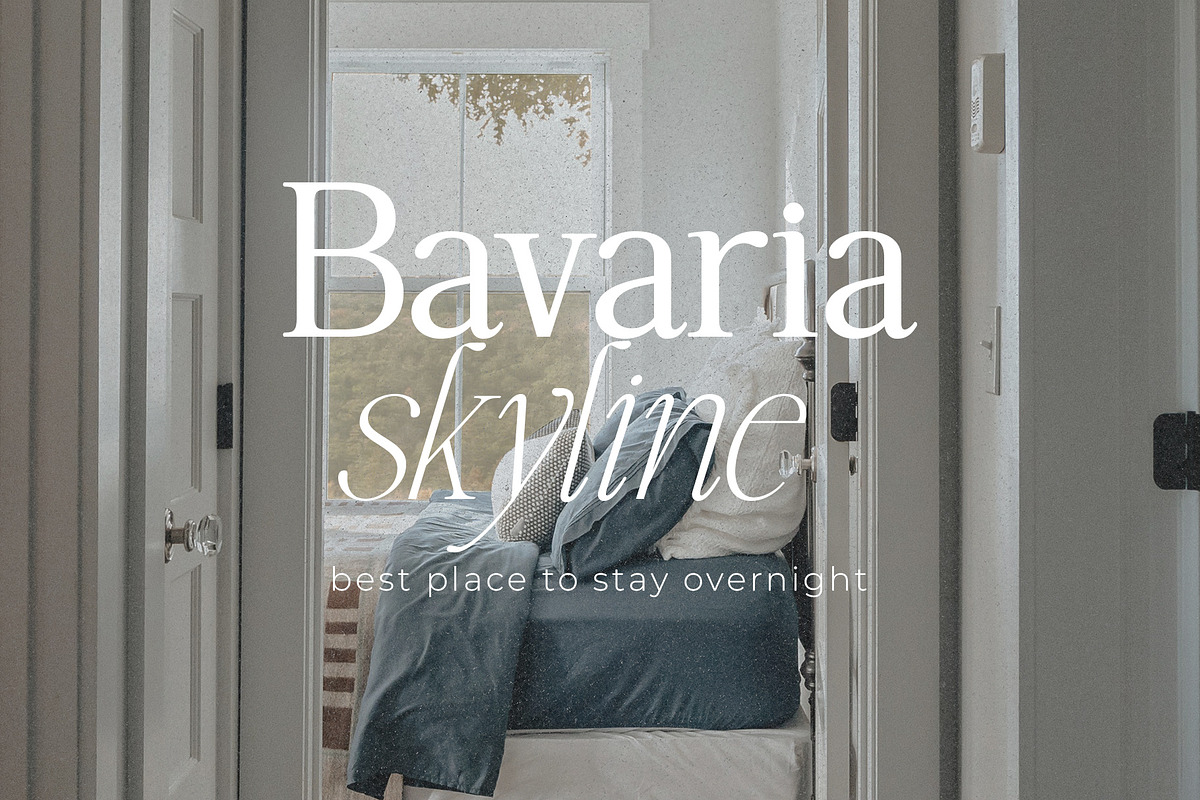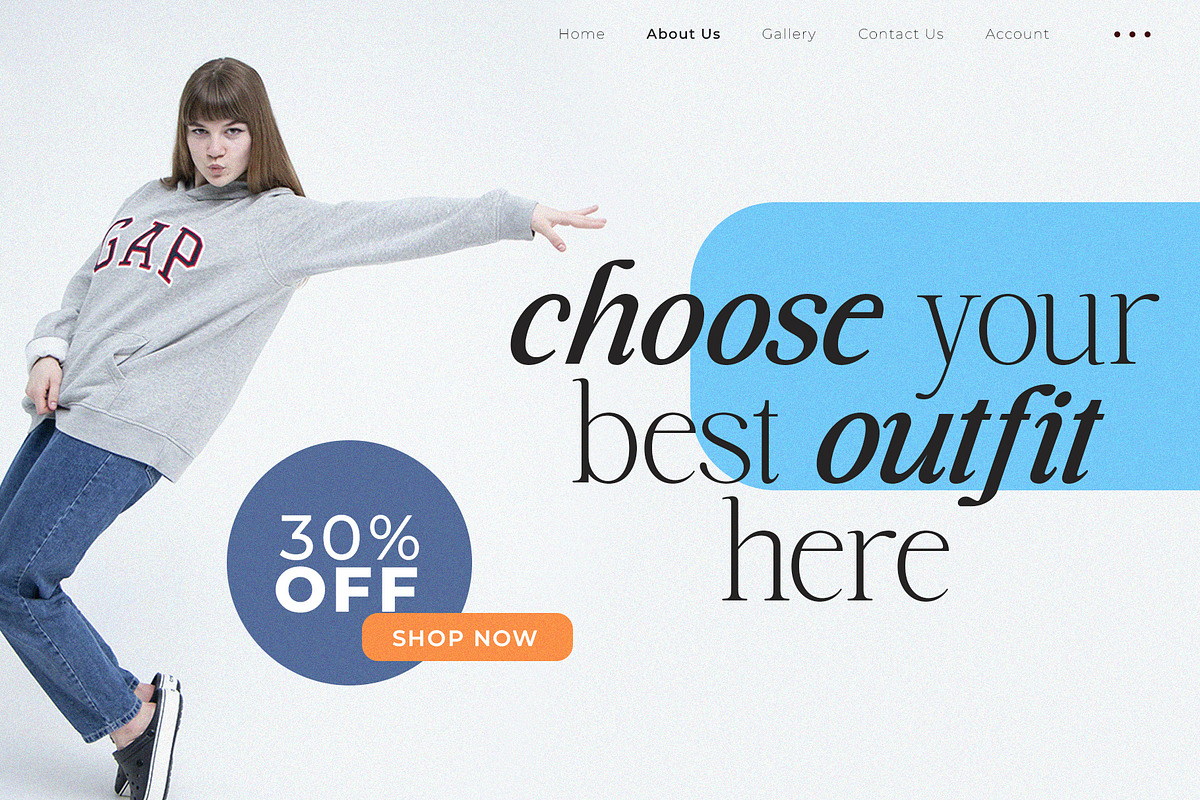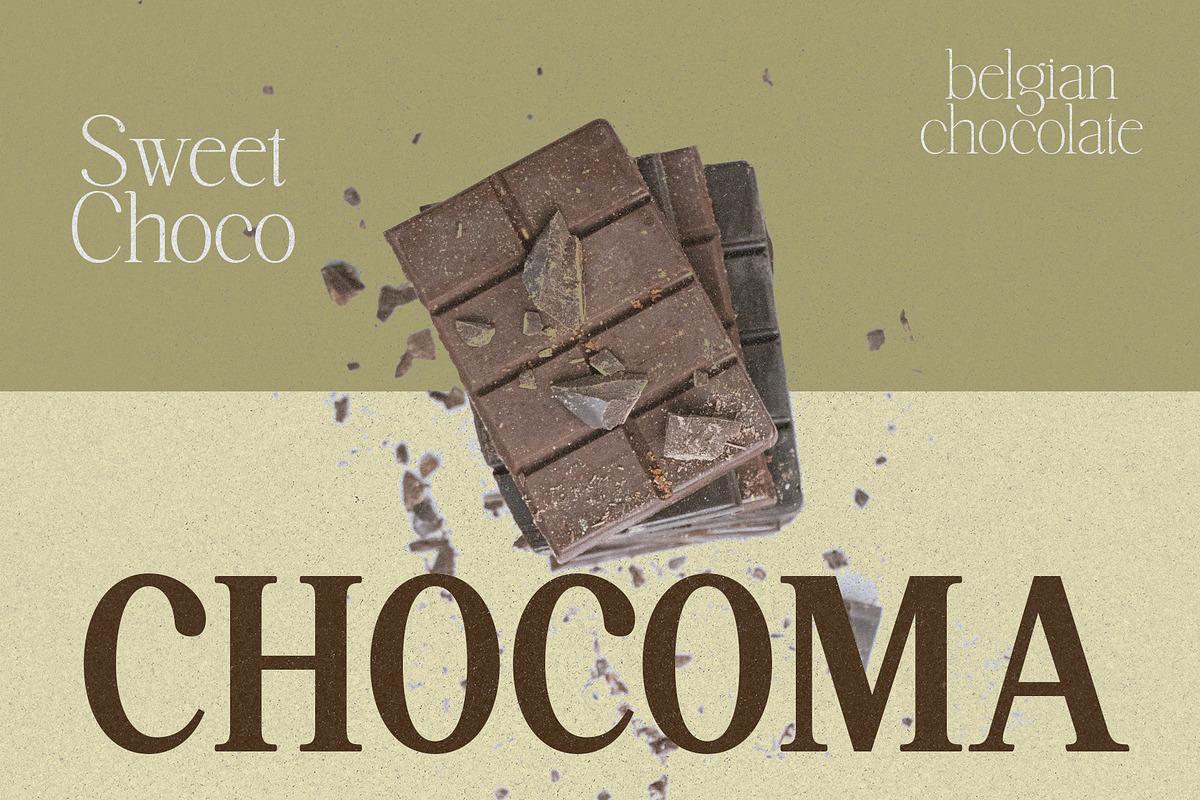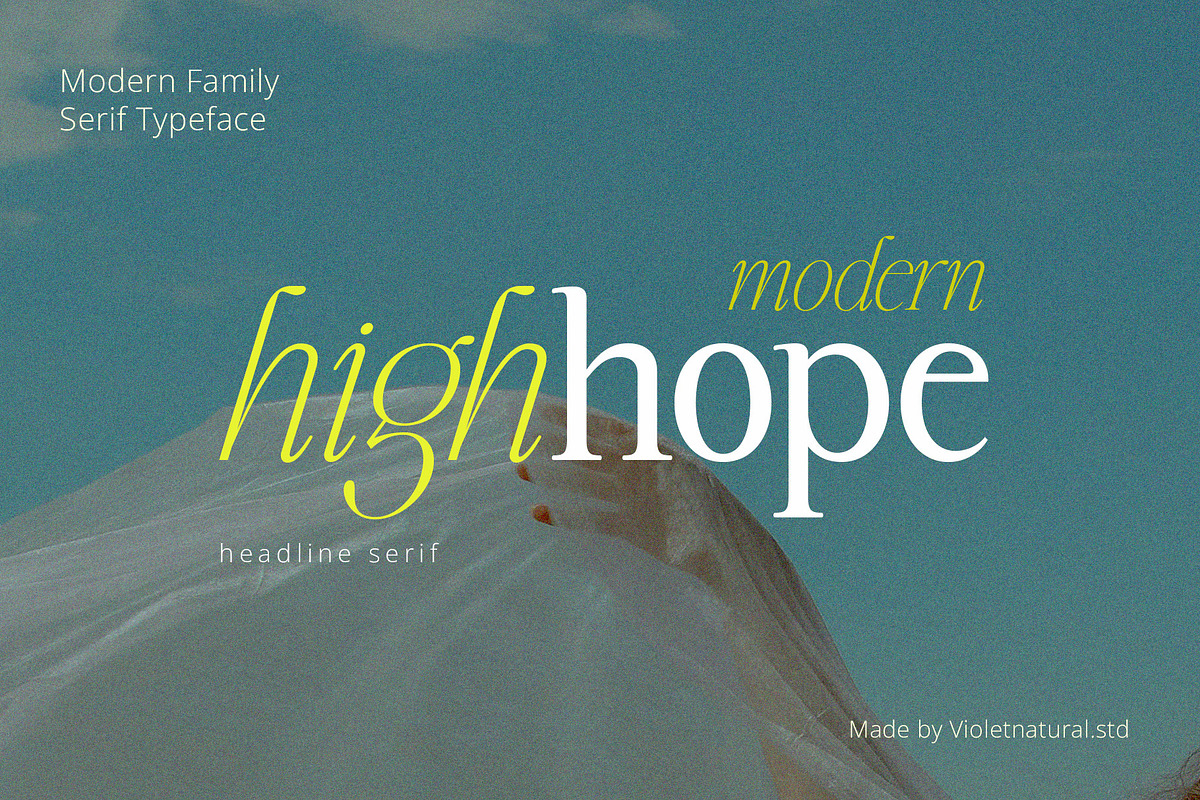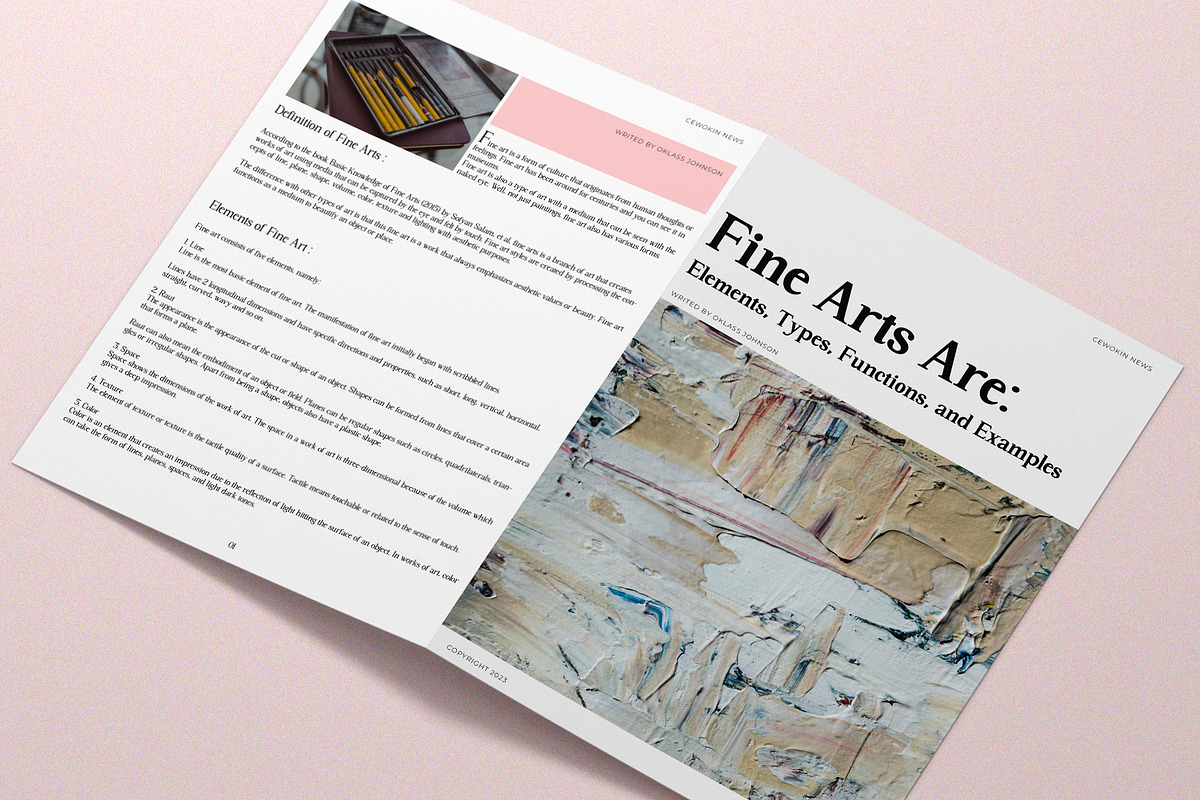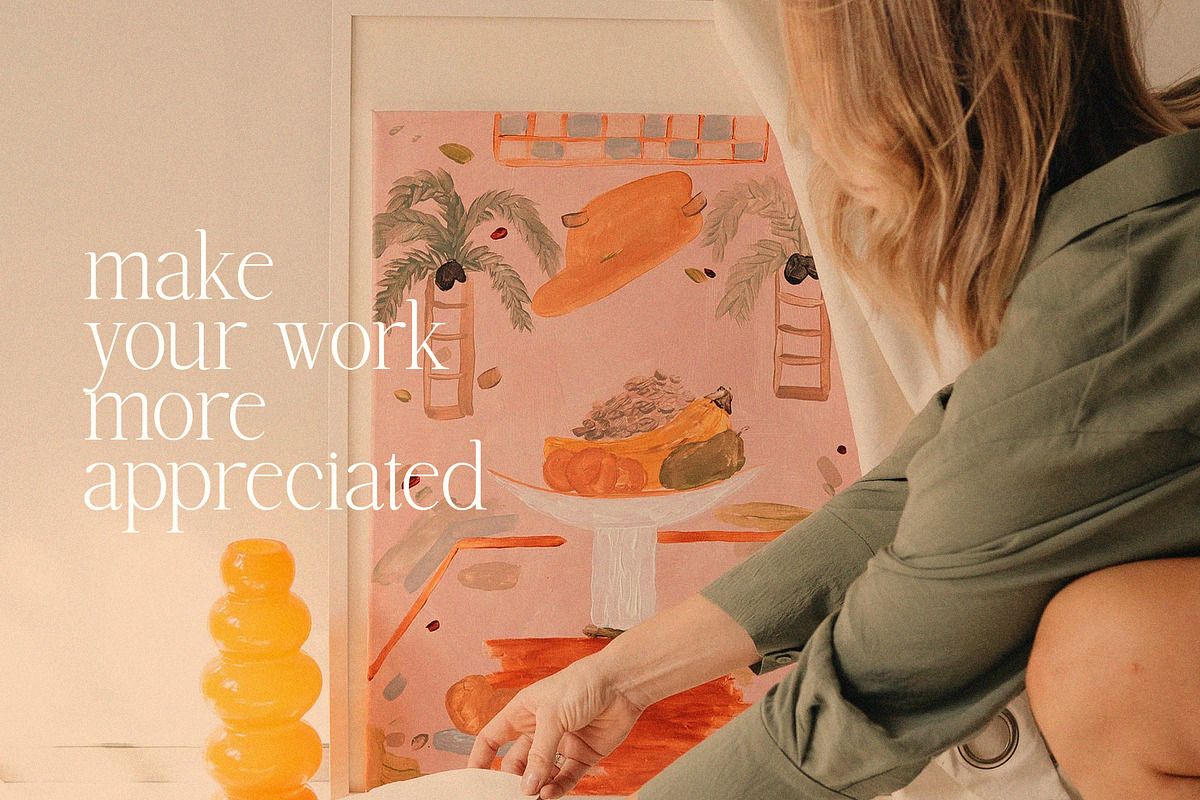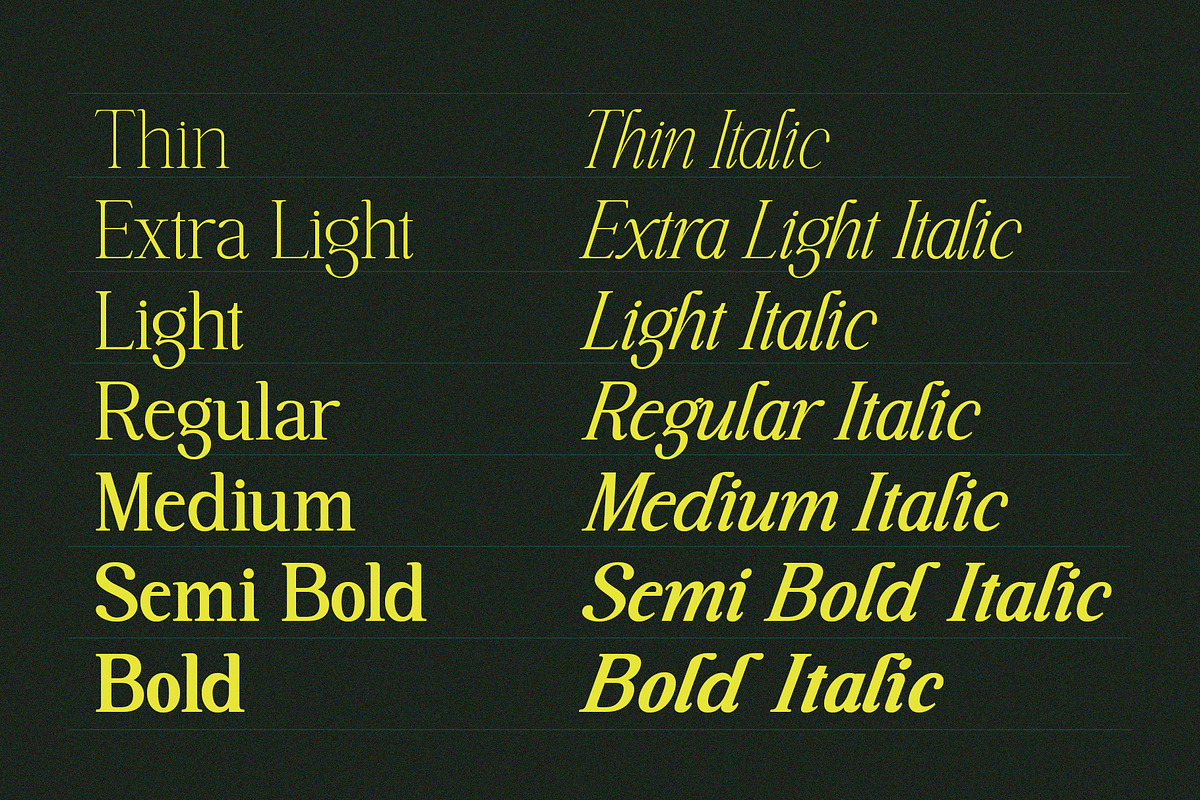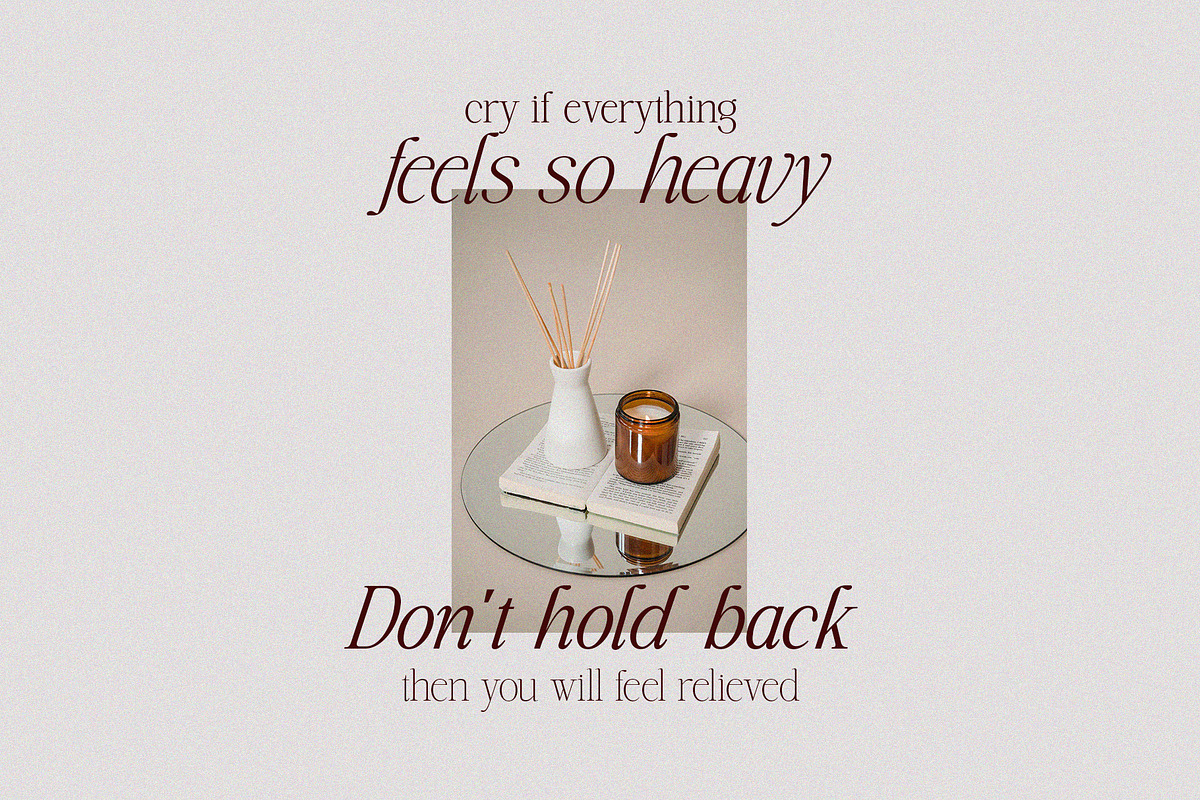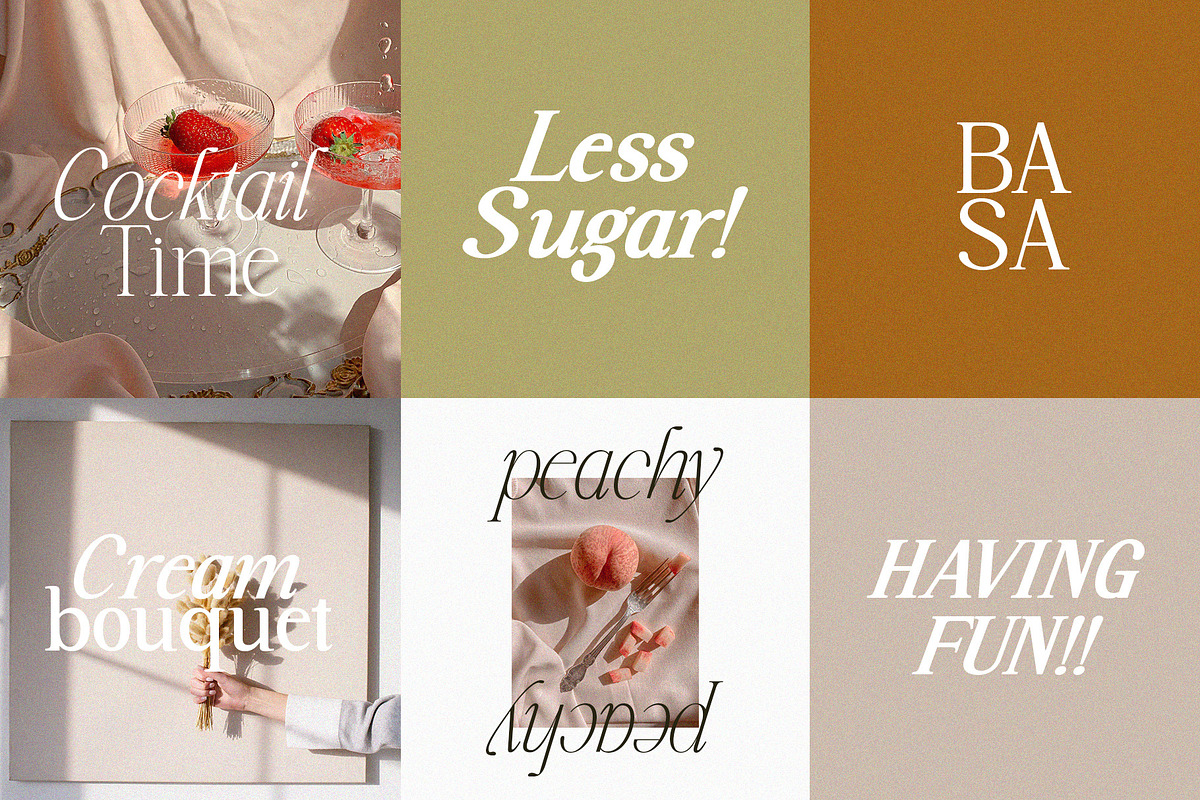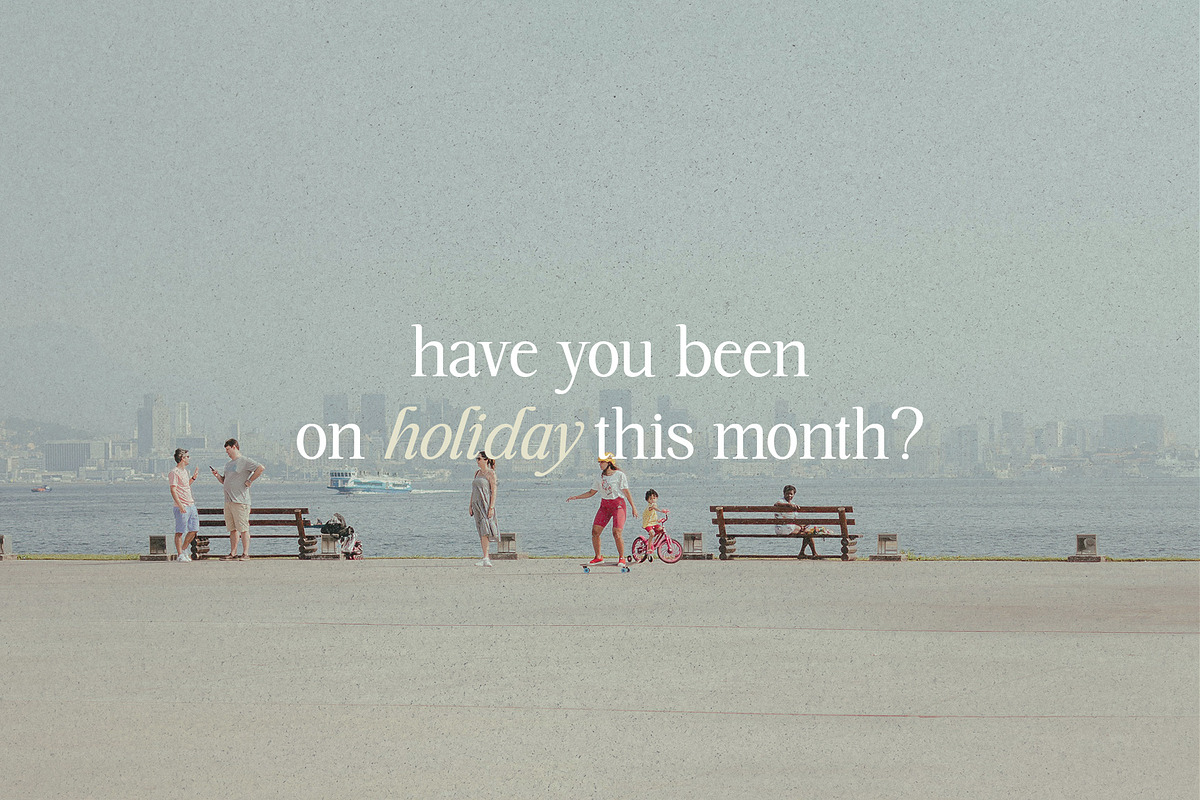
Highhope Serif
hello, this is my newest font called Highhope Serif Family . This font has a classic retro style but is packaged in a modern way to make your work projects more attractive and aesthetic. You will get files: .otf .ttf .woff .woff2